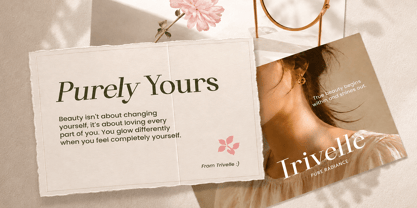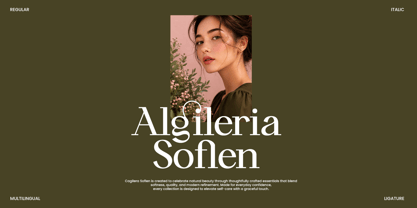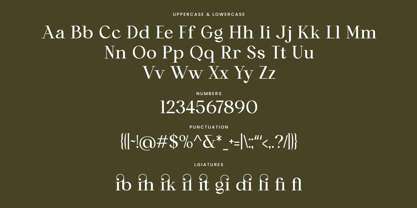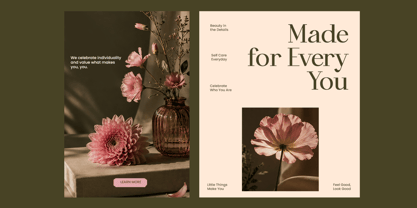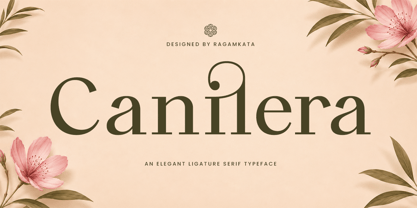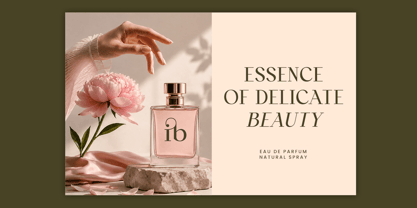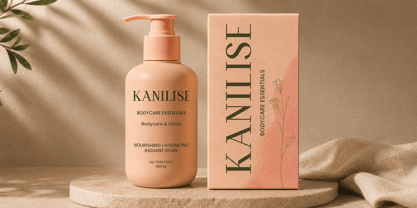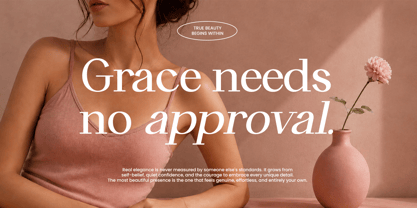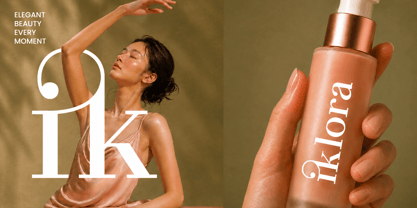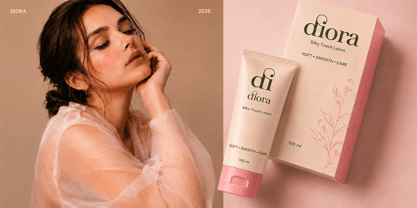
Canilera
The Canilera Font Family was designed by Yogiswhara Dio Prakoso Riadi and published by RagamKata. Canilera contains 2 styles and family package options. More about this family
Canifera is an elegant luxury serif font designed to bring timeless sophistication and modern refinement to every creative project. Featuring graceful letterforms, refined contrast, and stylish ligatures, this typeface delivers a premium aesthetic that feels both feminine and contemporary. Whether you're building a luxury brand or creating editorial layouts, Canifera adds an unmistakable touch of class.
Perfect for beauty branding, fashion campaigns, skincare packaging, cosmetic labels, wedding invitations, jewelry logos, boutique identities, magazines, social media content, and premium product packaging. Every character is carefully crafted to ensure outstanding readability while maintaining a distinctive high-end personality.
Canifera includes uppercase and lowercase characters, numerals, punctuation, multilingual support, and elegant ligatures, making it a versatile display font for designers, creative studios, and branding professionals looking to create memorable visual identities.